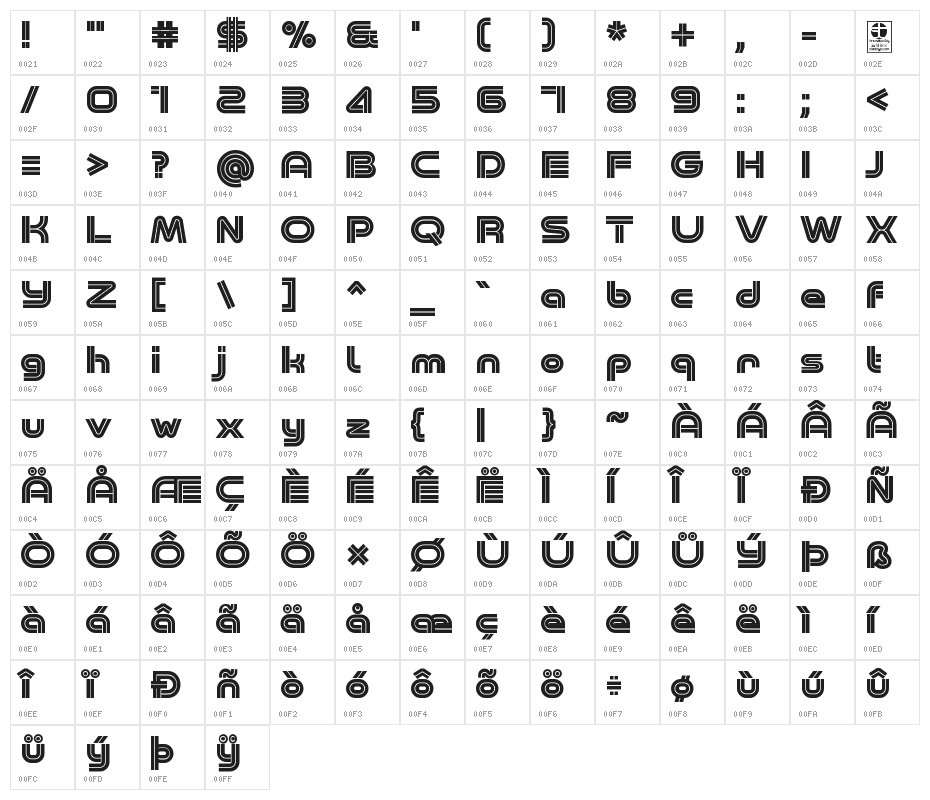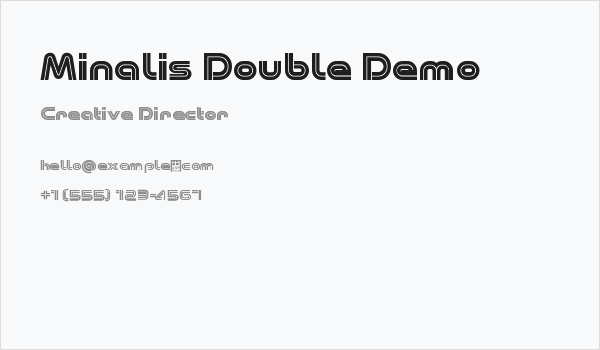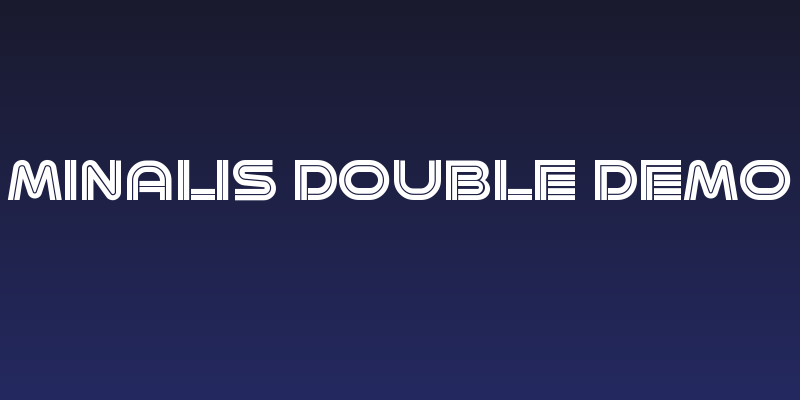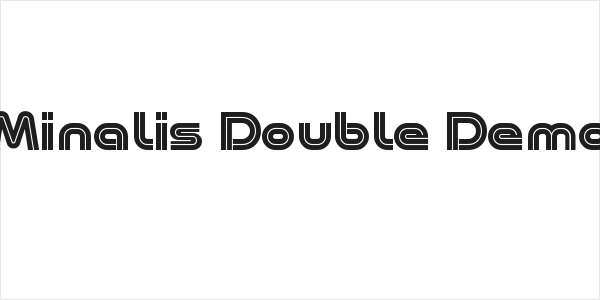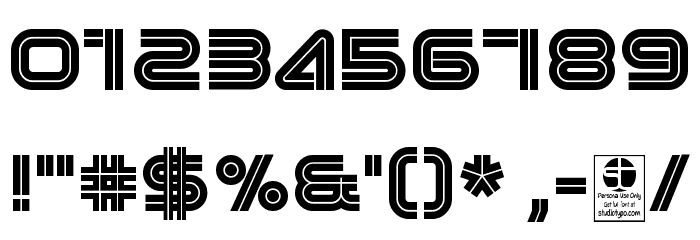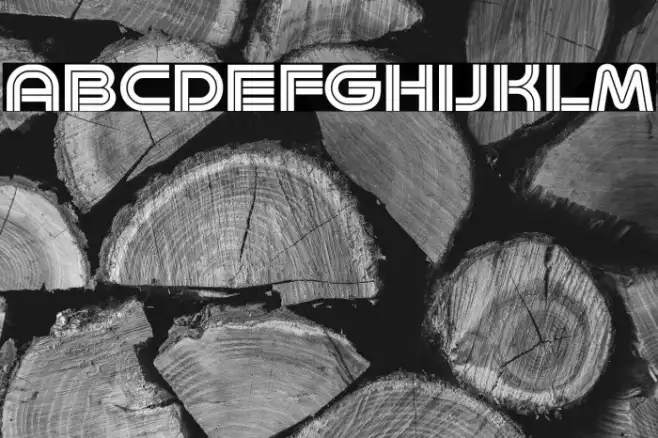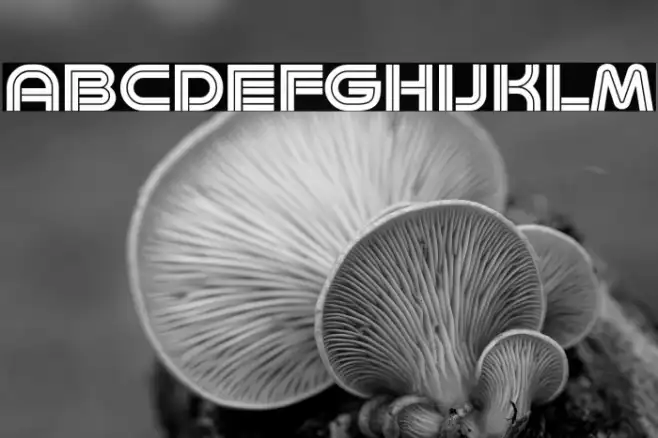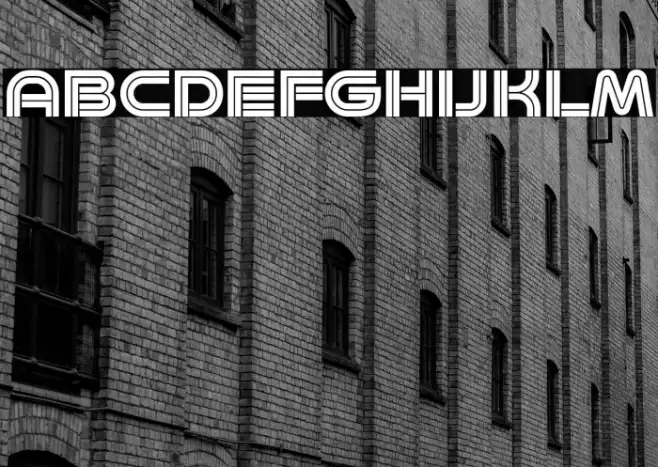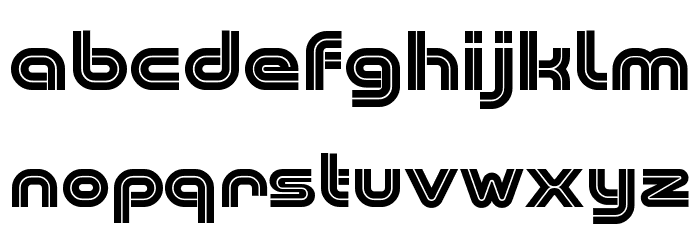
Minalis Double Demo Font
Minalis Double Demo Description
This font features a unique, geometric design with a double-line structure that creates a bold and modern appearance. The uppercase and lowercase letters are consistent in style, with clean, sharp edges and a futuristic feel. The numbers and special characters maintain the same double-line aesthetic, ensuring uniformity across all characters. This font is ideal for projects that require a strong visual impact, such as branding, posters, or digital media. Its distinctive style makes it stand out, while the consistent line work provides a cohesive look.
MINALIS-DOUBLE-DEMO UPPERCASE
MINALIS-DOUBLE-DEMO LOWERCASE
MINALIS-DOUBLE-DEMO OTHER CHARS